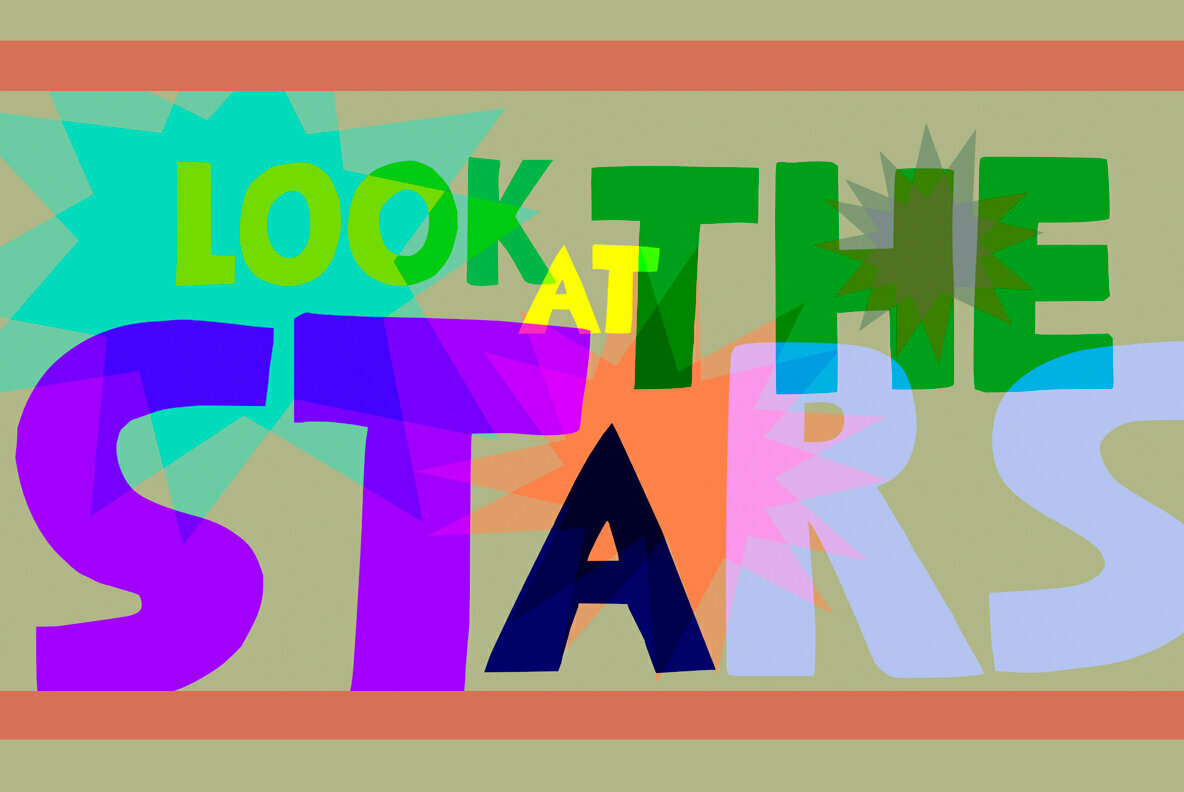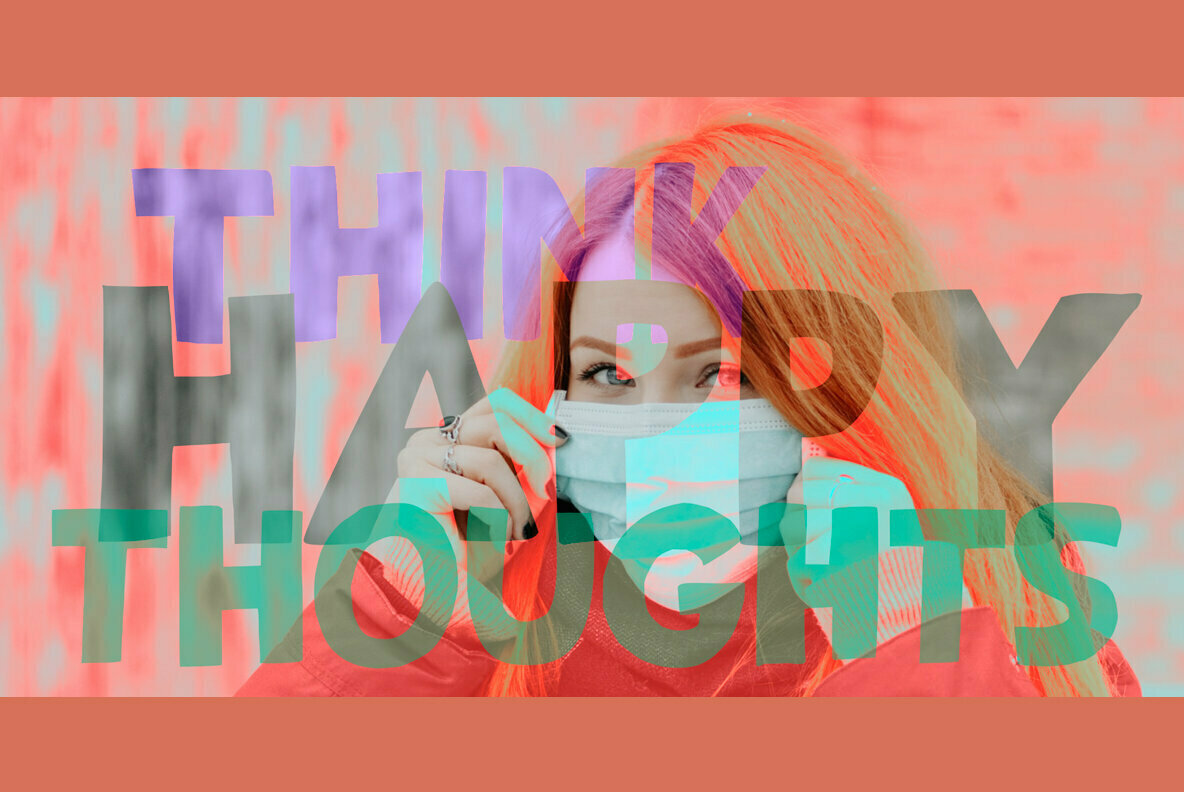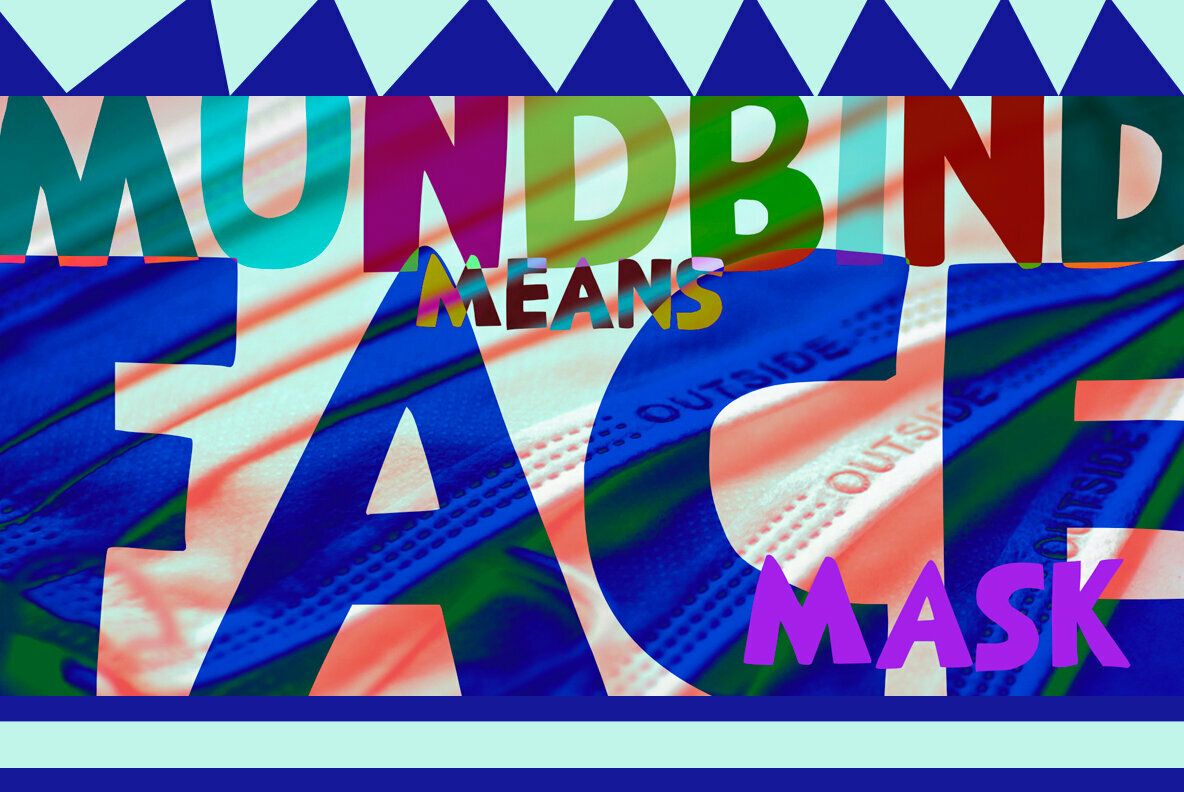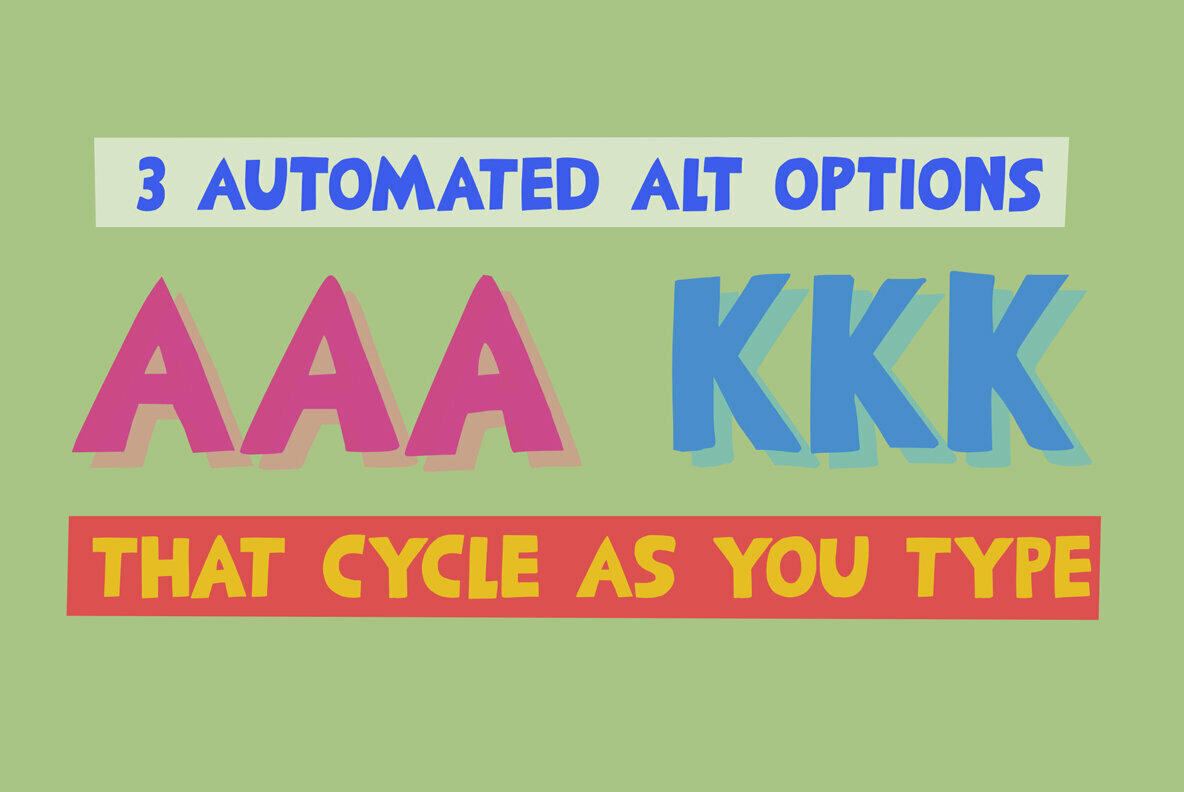
Mundbind NL Font
I just visited my good friend Jakob Fischer from
in Denmark. As always we talked fonts, drank coffee and walked endlessly through Copenhagen, the city where he lives.
We thought it would be a fun idea to each create a font from a handmade sign we saw in the city. We only had like 7 glyphs to work with, so the rest was up to our imagination. We also thought it would be nice to give the fonts a similar name.
Mundbind means mask in Danish. When you Google translate it, it will give you the wrong translation (it will say 'mouth piece'), so trust me on this one!
My font is called Mundbind NL - where the NL stands for Netherlands. Jakob will hopefully call his finished font Mundbind DK - where the DK stands for Denmark.
Mundbind NL comes with a monster load of diacritics (including Vietnamese) and two alternate glyphs for the lower case letters that will cycle as you type.